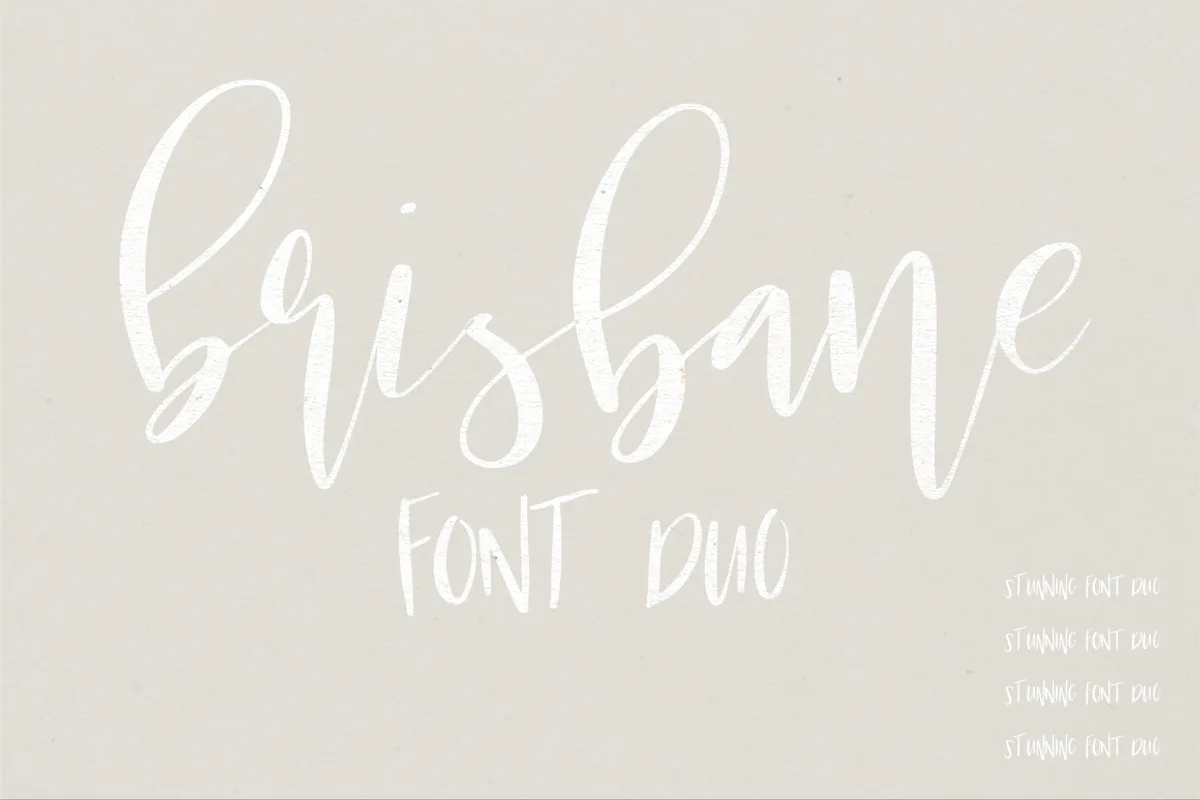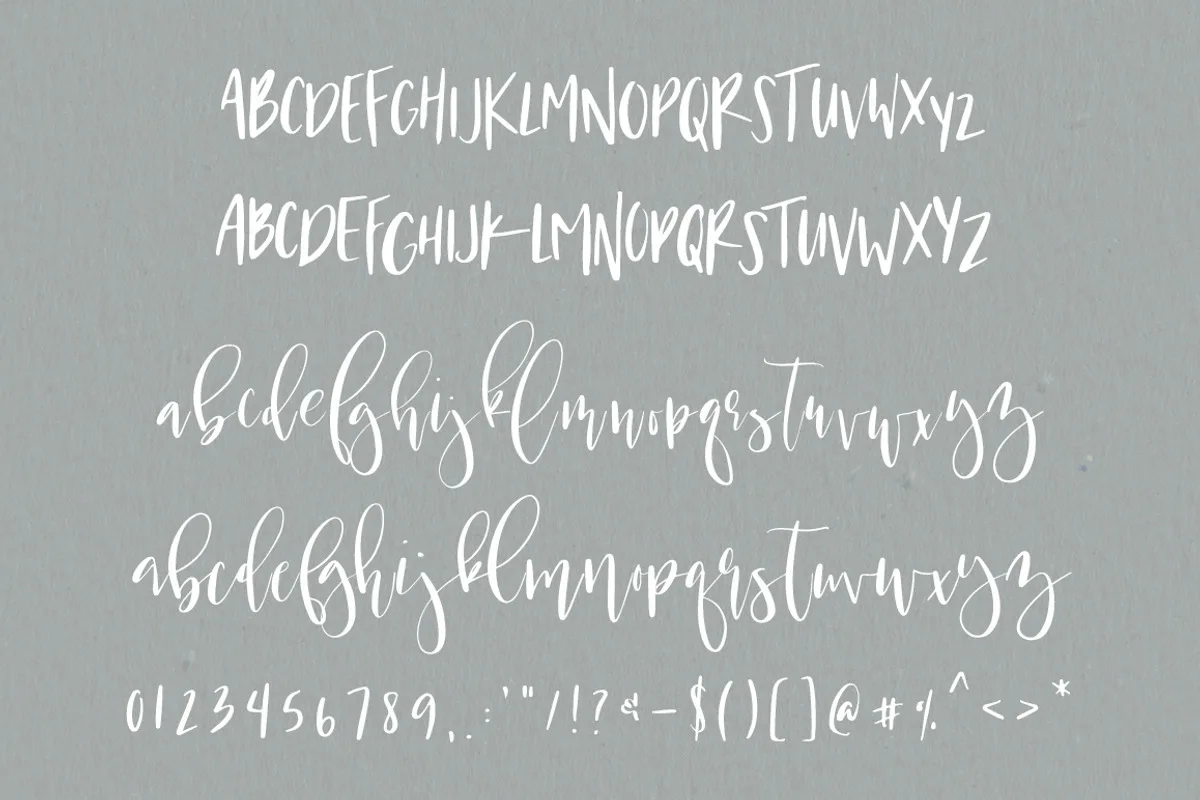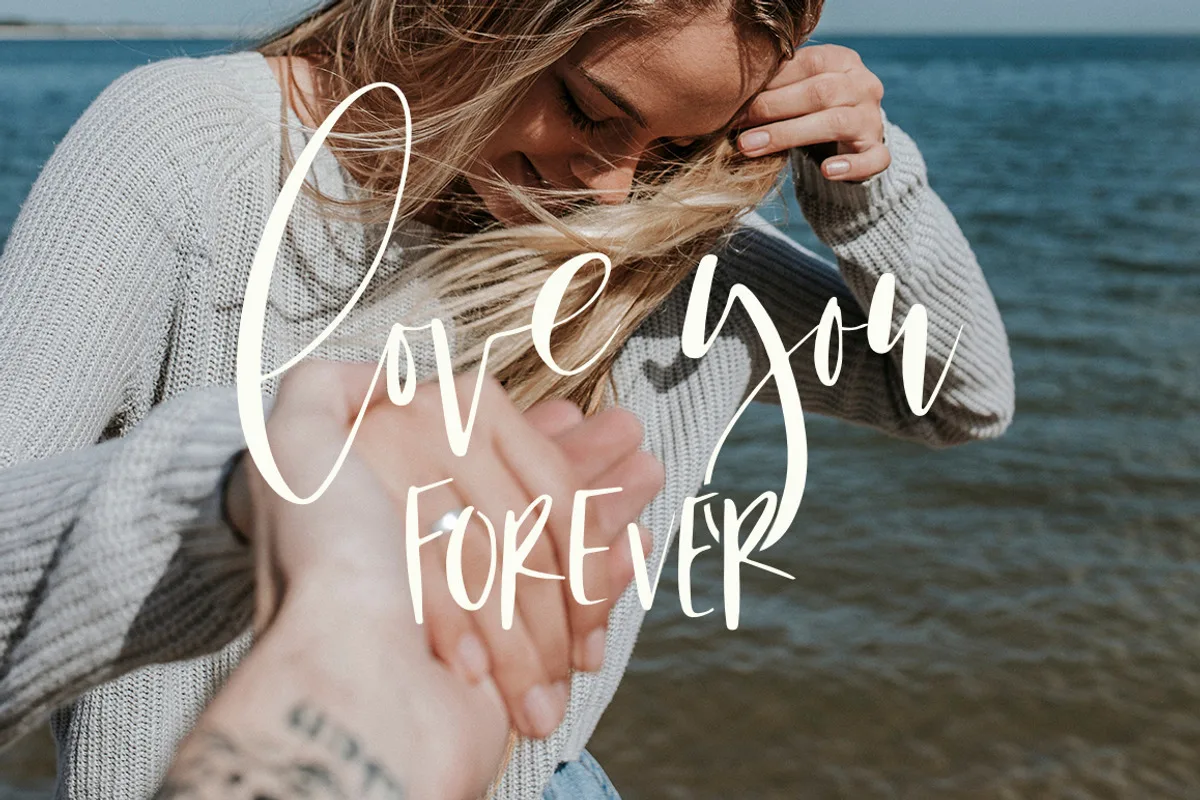
Brisbane is a gorgeous and fun font duo that is perfect for wedding invitations, baby shower invites, logos, and so much more! It looks stunning paired with sans serif fonts like Gotham or Proxima Nova, or on its own as a big beautiful header. Have fun with this set!